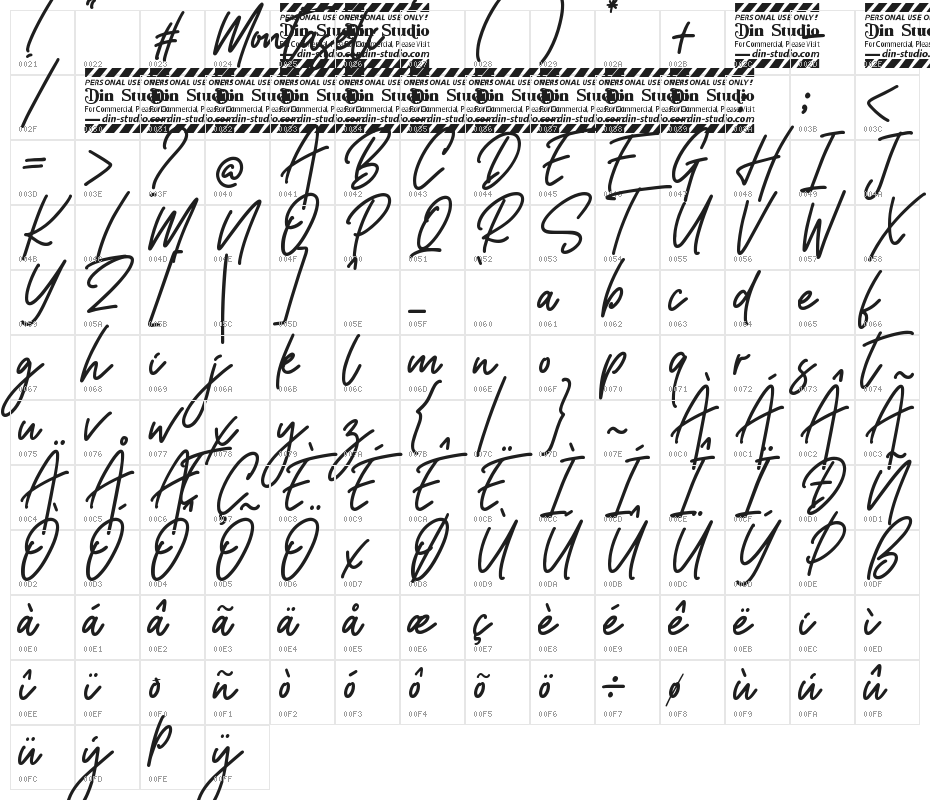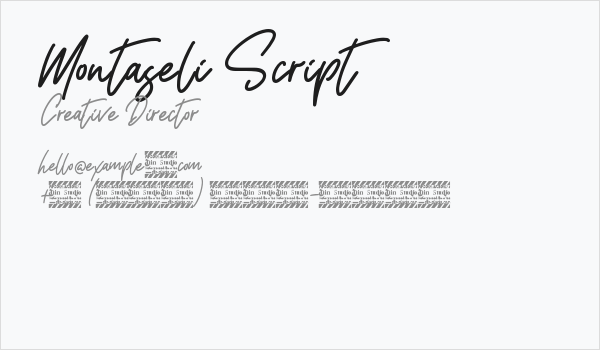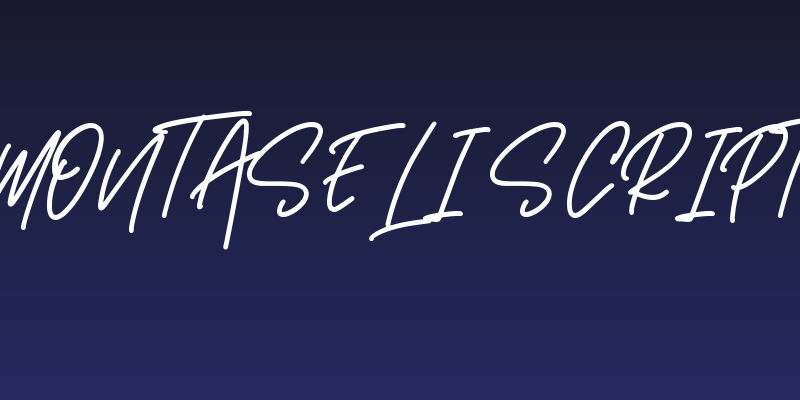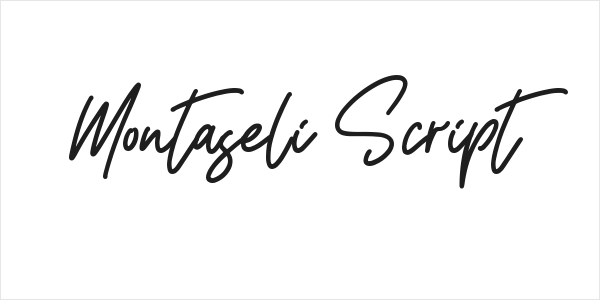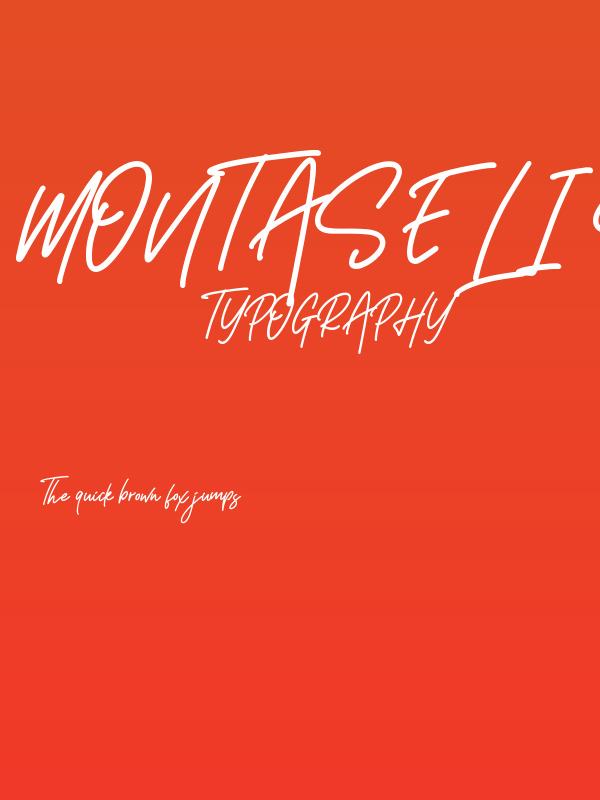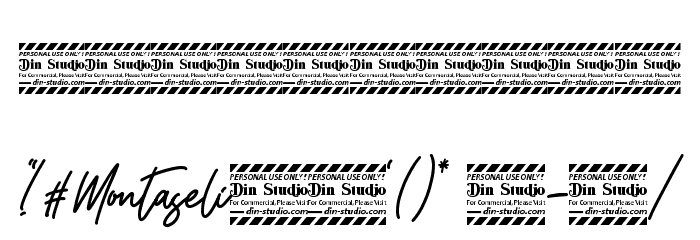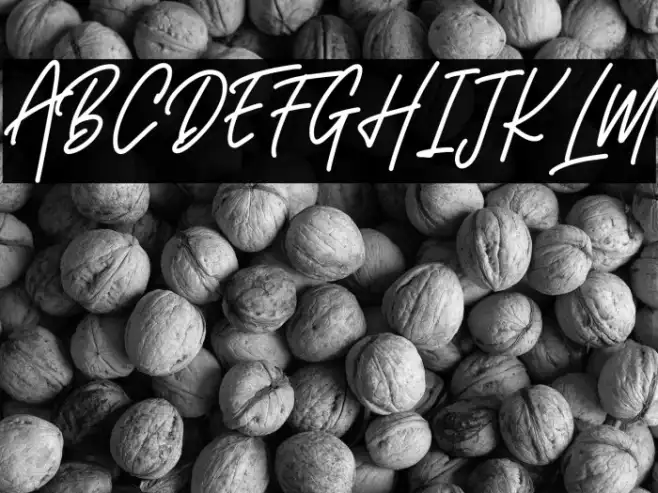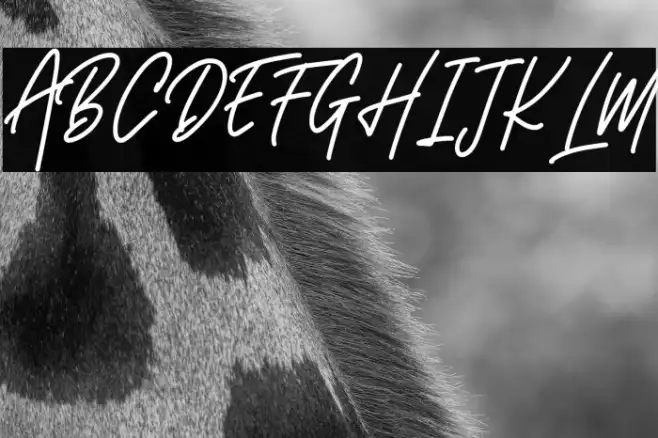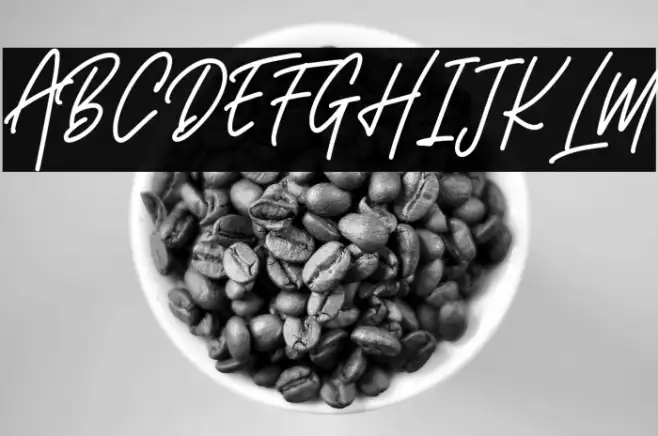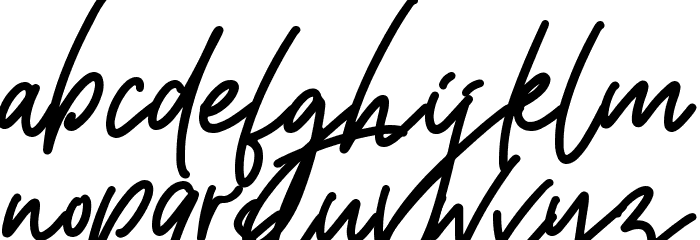
Montaseli Script Font
Montaseli Script Description
This script font exudes a dynamic and expressive style, characterized by its fluid, handwritten appearance. The letters are elegantly connected, creating a seamless flow that mimics natural handwriting. The uppercase letters maintain a consistent height, while the lowercase letters vary slightly in size, adding to the organic feel. The strokes are smooth and slightly slanted, with a medium contrast between thick and thin lines, giving the font a lively and energetic vibe. The overall design is both sophisticated and casual, making it versatile for various creative applications.
| Use Case | Logos, Invitations, Social Media Graphics |
| Proposed Projects | Ideal for wedding invitations, greeting cards, branding projects, and social media graphics. |